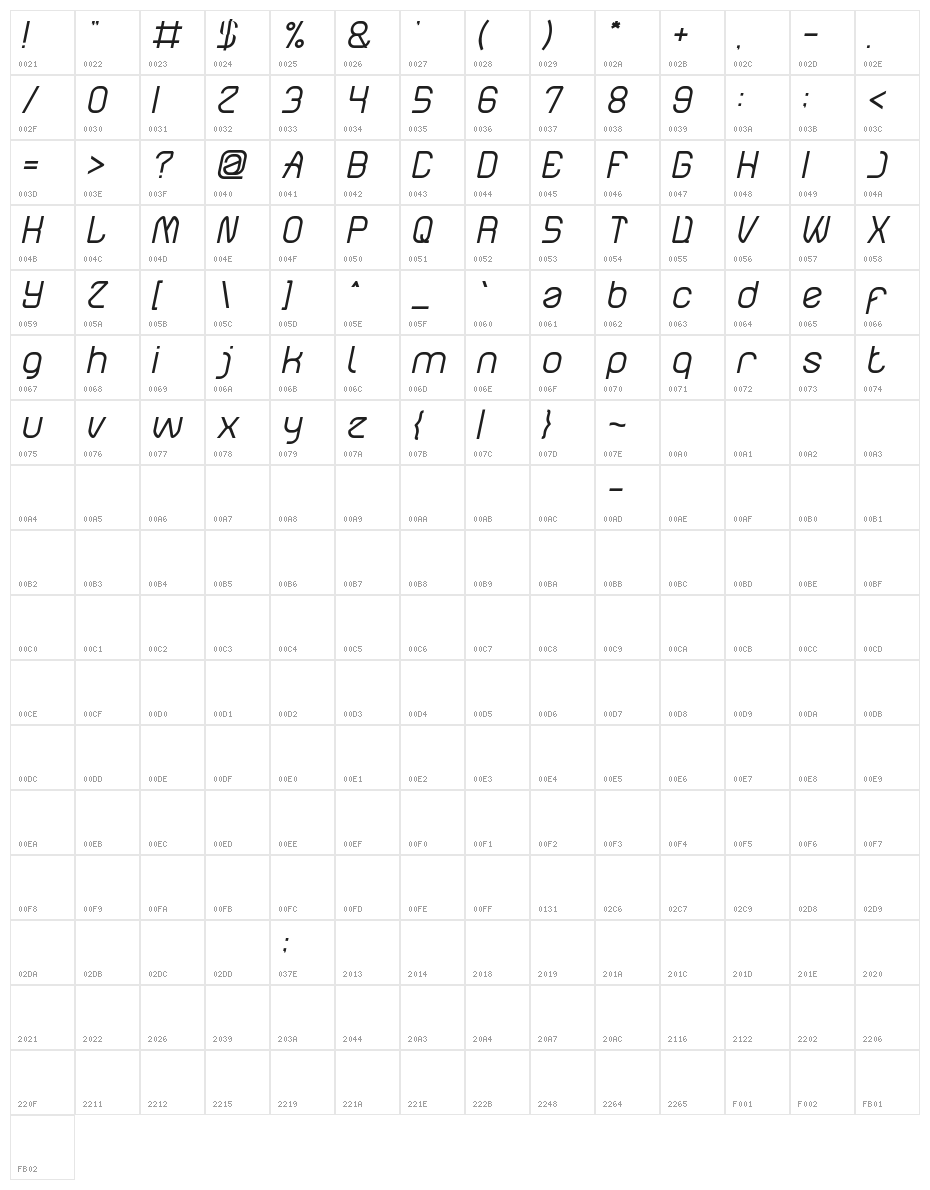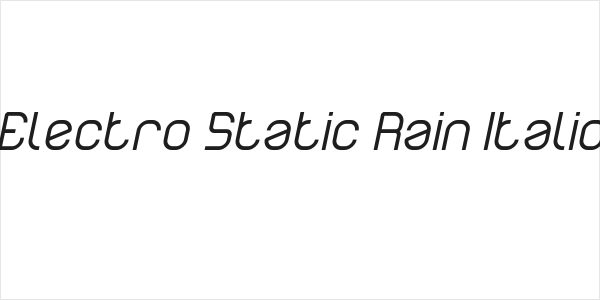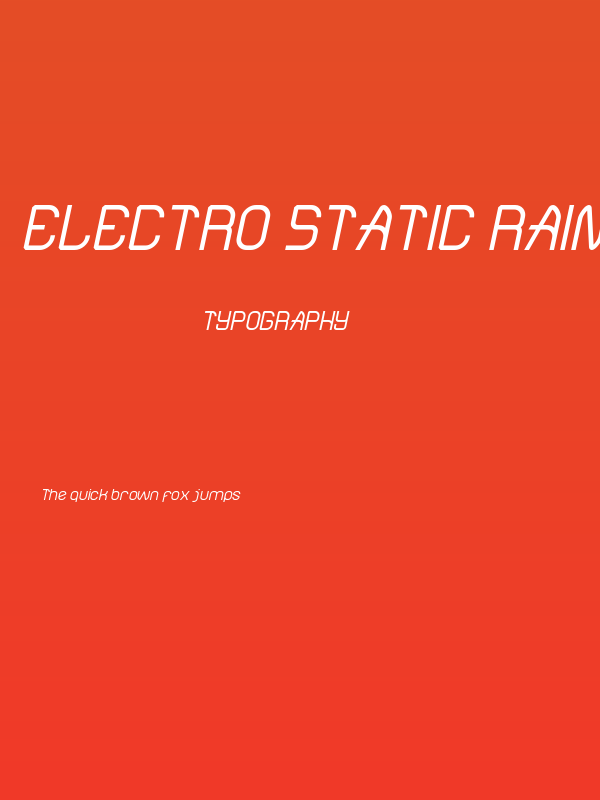
Electro Static Rain Italic Font
Electro Static Rain Italic Description
This font features a sleek, futuristic design with a distinct italic slant, giving it a dynamic and modern appearance. The characters are crafted with a consistent stroke width, contributing to a clean and streamlined look. The uppercase and lowercase letters maintain a uniform style, with rounded edges and a slightly condensed form that enhances readability. The numerals and special characters follow the same design principles, ensuring a cohesive visual experience across all text elements. This font's unique style makes it suitable for projects that require a contemporary and energetic feel.
| Use Case | Headlines, Logos, Digital interfaces |
| Proposed Projects | Ideal for technology branding, modern advertising, sci-fi themed projects, and digital interfaces. |